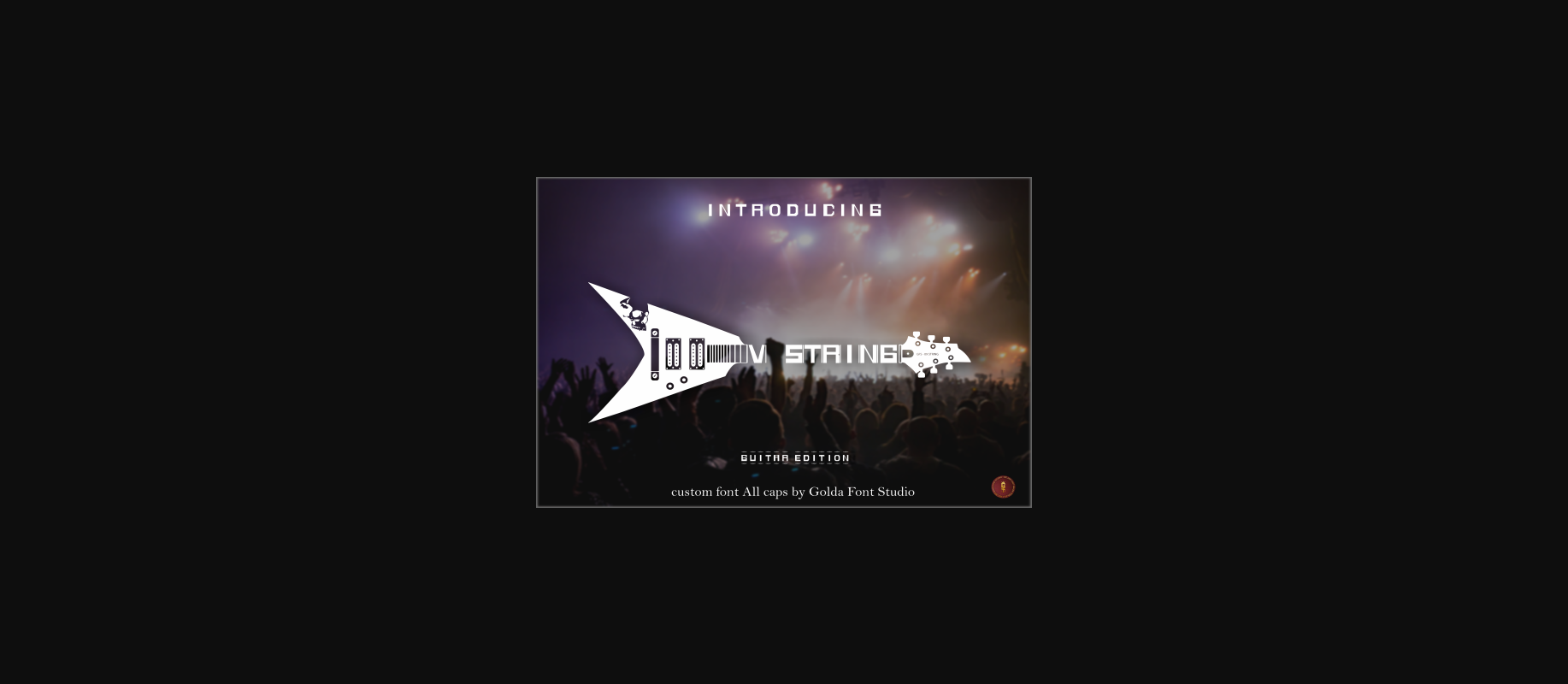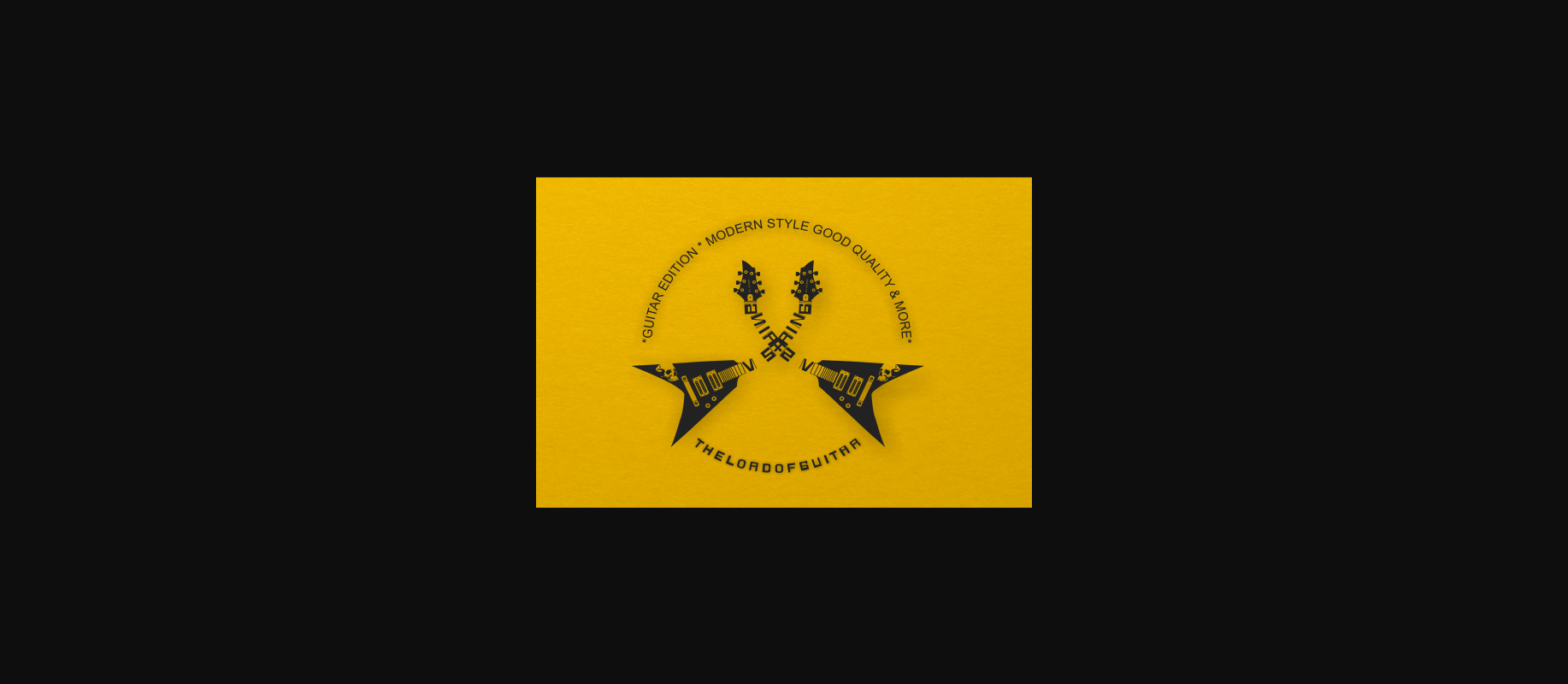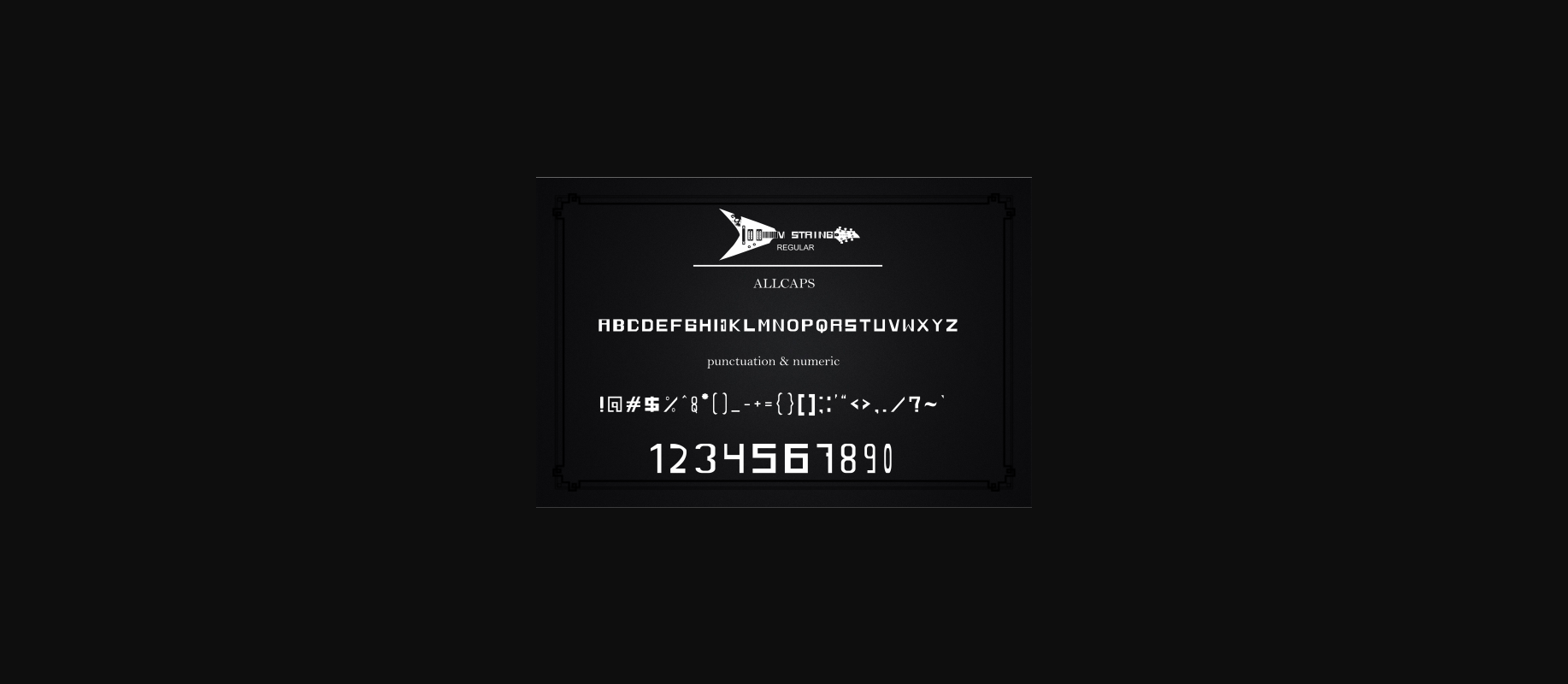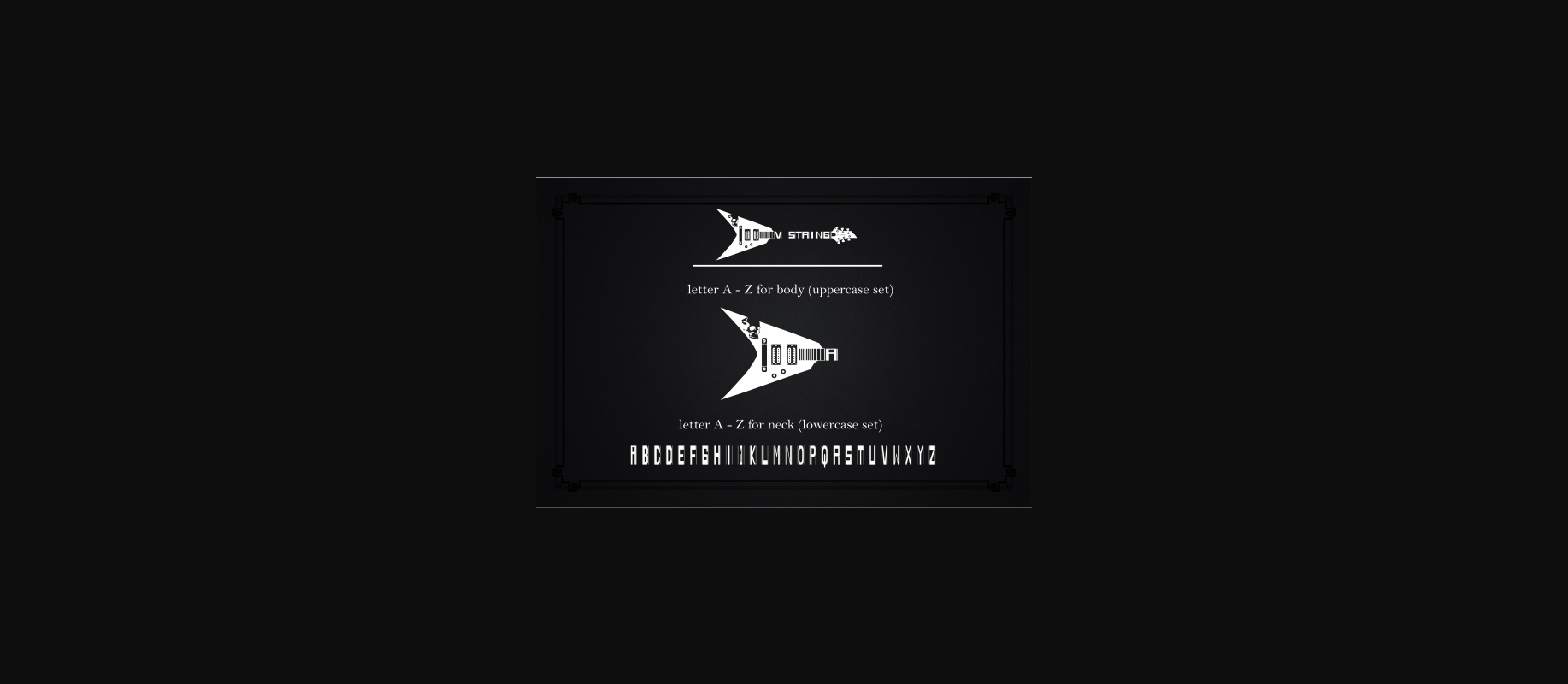
V String Font
About V String Font
V String is a cool and incredibly genuine duo font (decorative and display). No matter the topic, this font will be an incredibly asset to your fonts’ library, as it has the potential to elevate any creation.